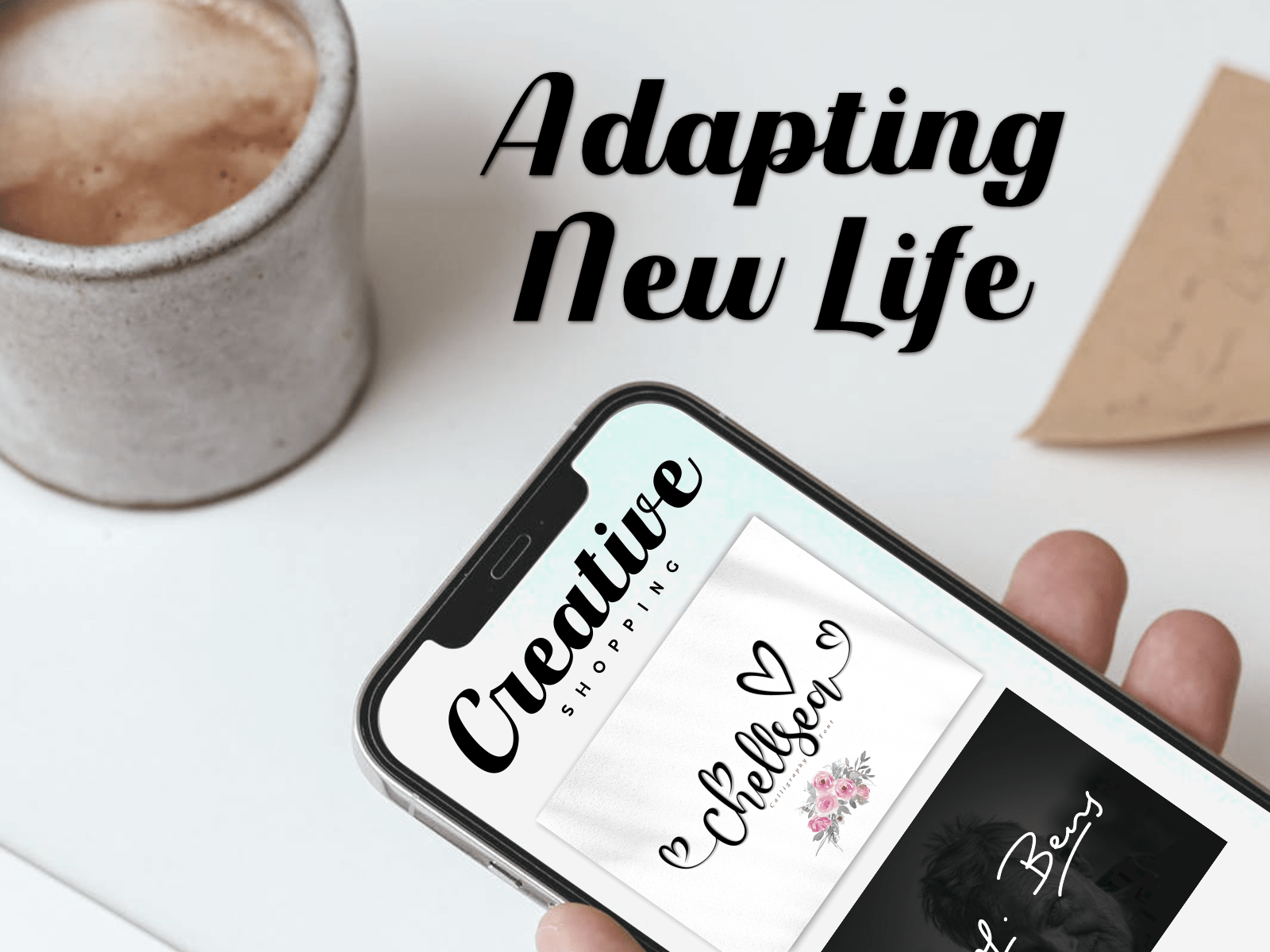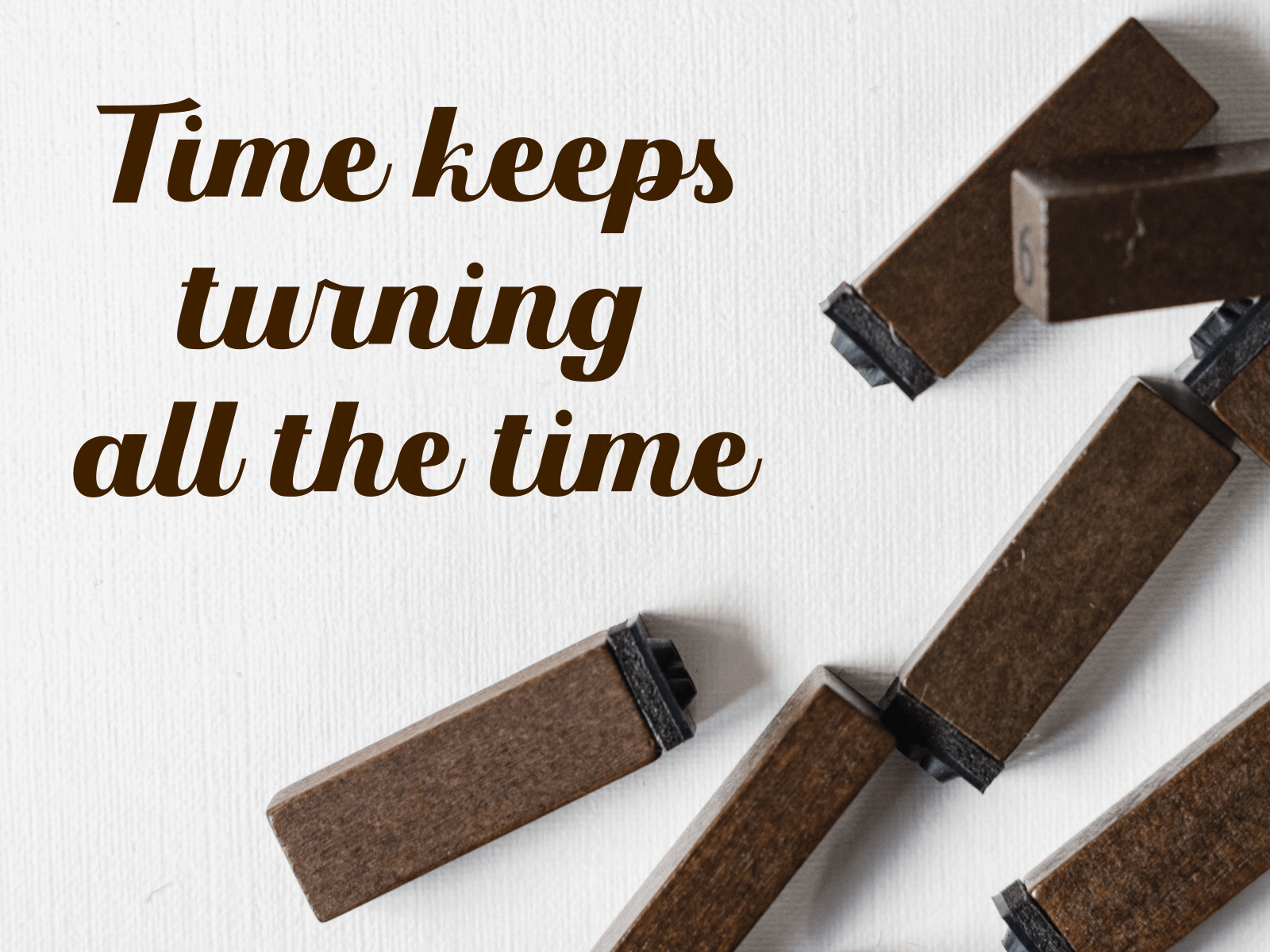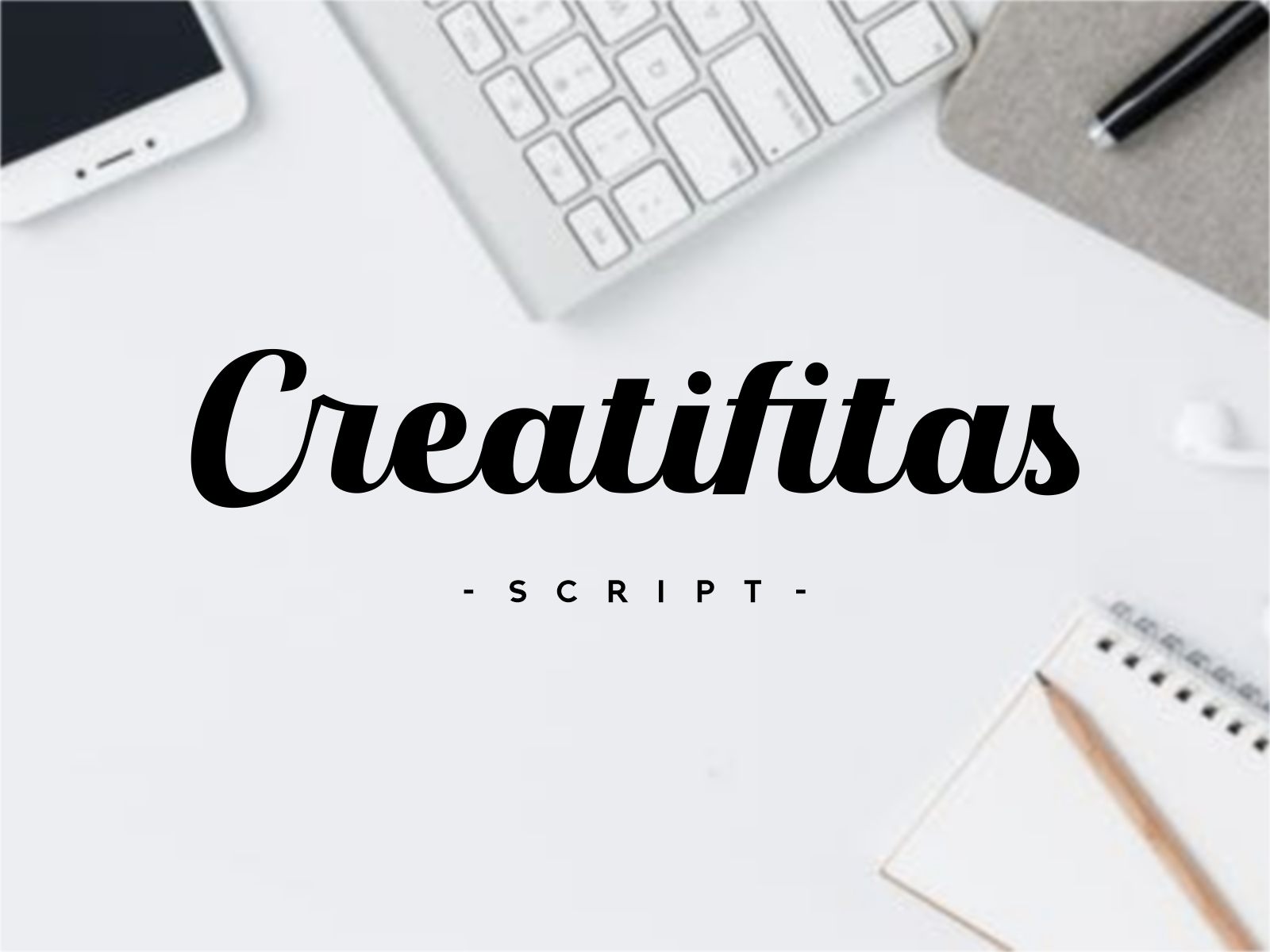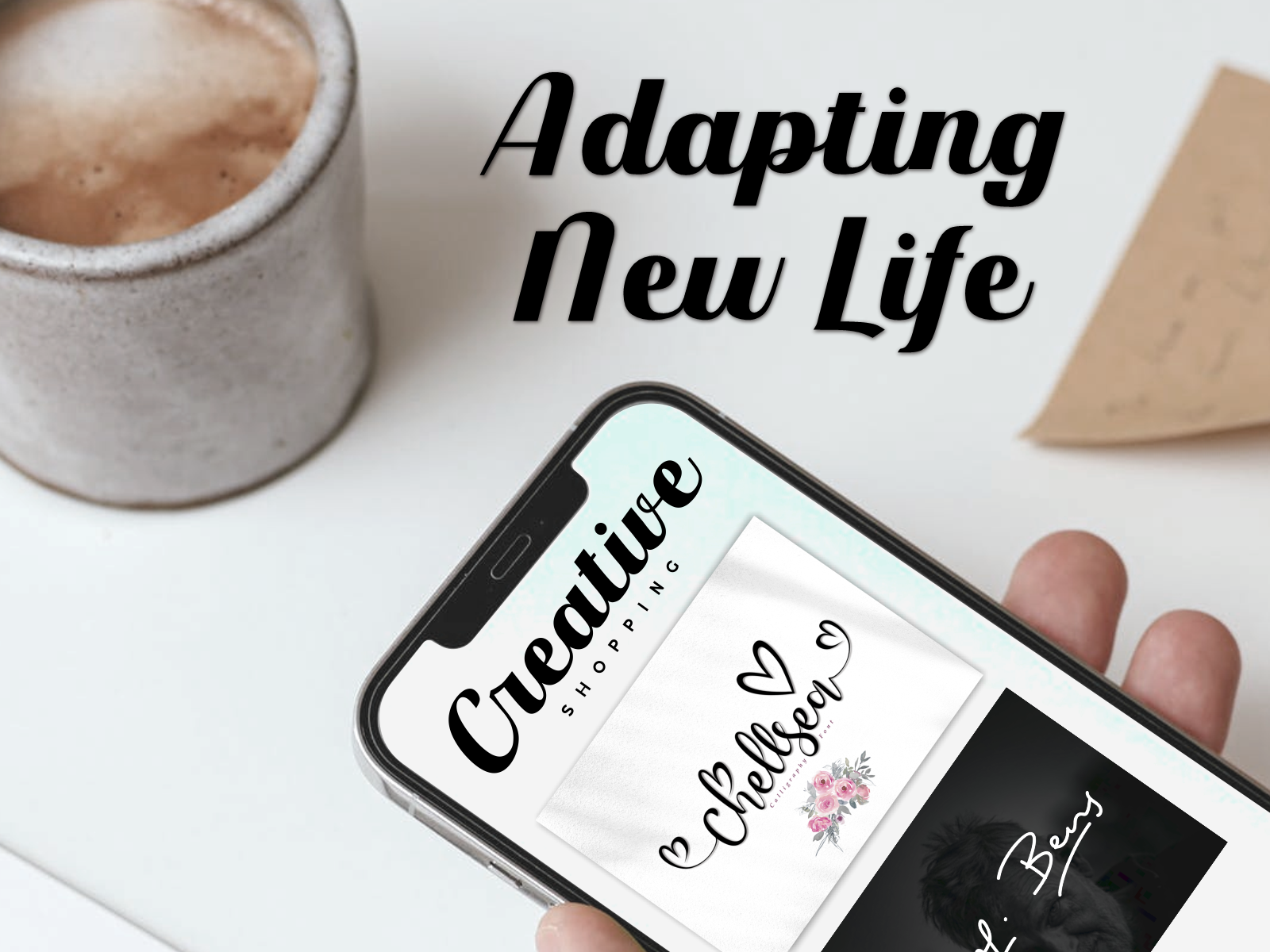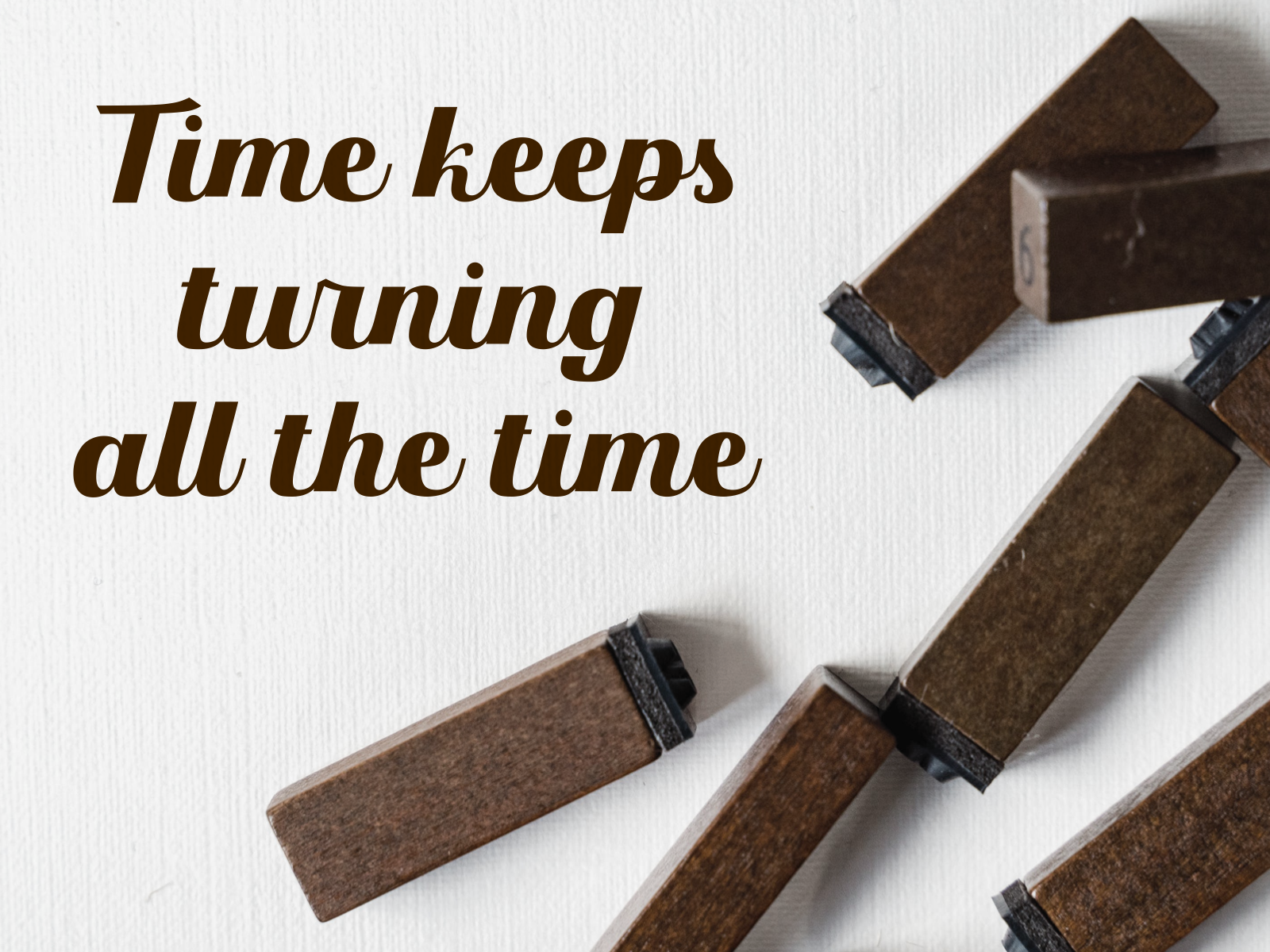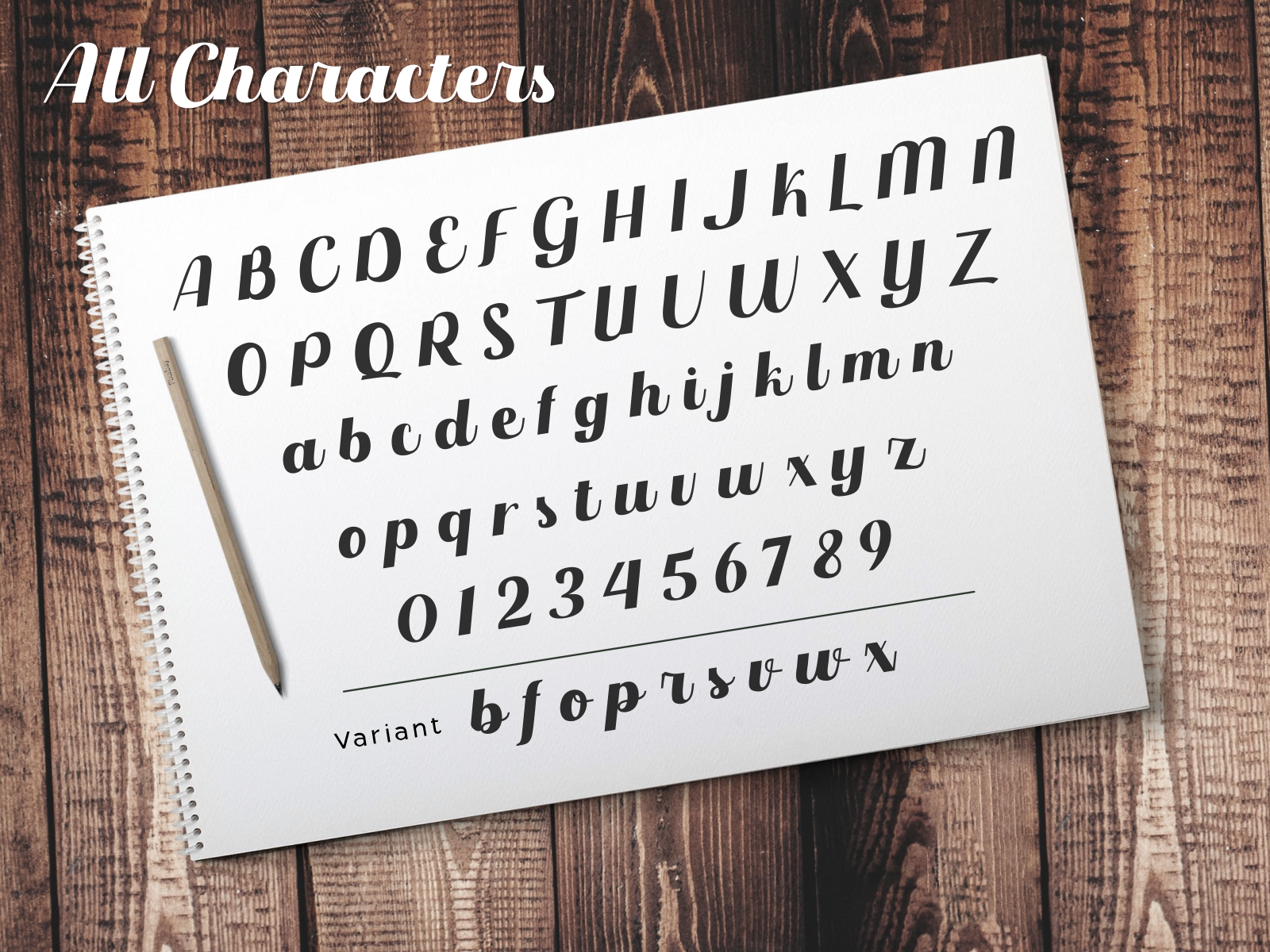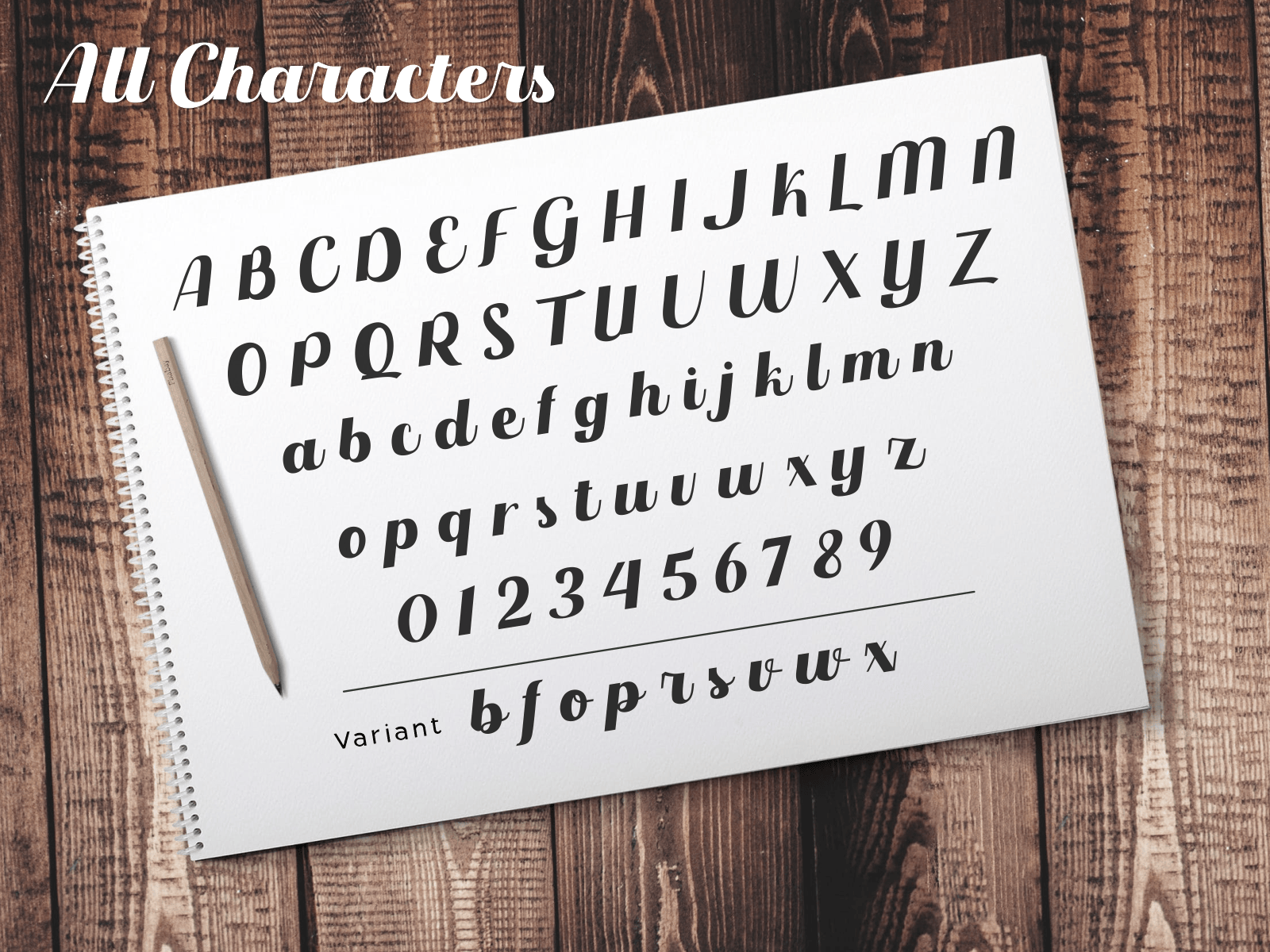
Creatifitas Calligraphy Font
This is an elegant and exquisite handwritten font that features sweet and delicate swashes. This original look will appeal to a wide range of crafty ideas, from letterheads and titles, to stationery.